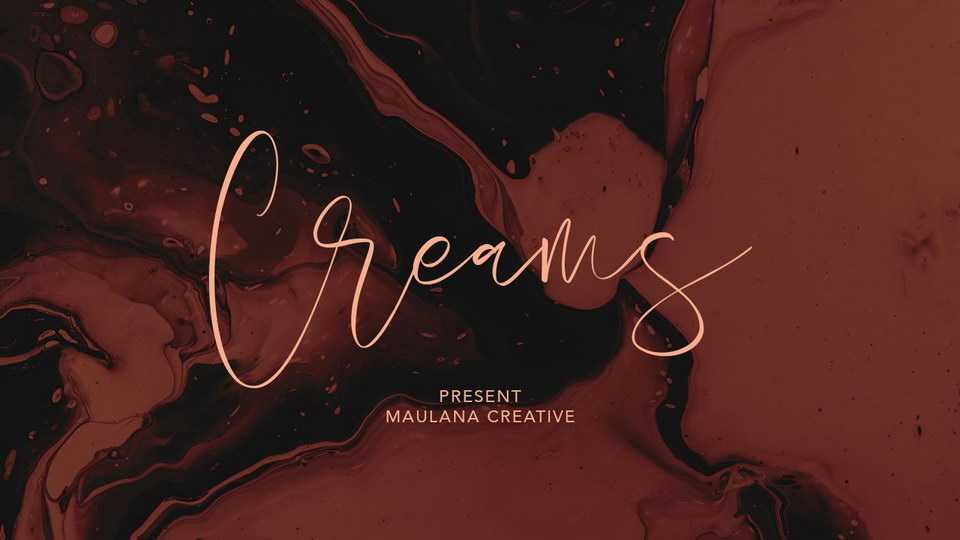
Creams Script Font › Fontesk – Download Grátis
Download Creams font, a stylish script to give your designs an authentic handcrafted feel. Creams is perfectly suited to signature, stationery, logo, typography quotes, magazine or book cover, website header, clothing, branding, packaging design and more.
Designer: Maulana Creative